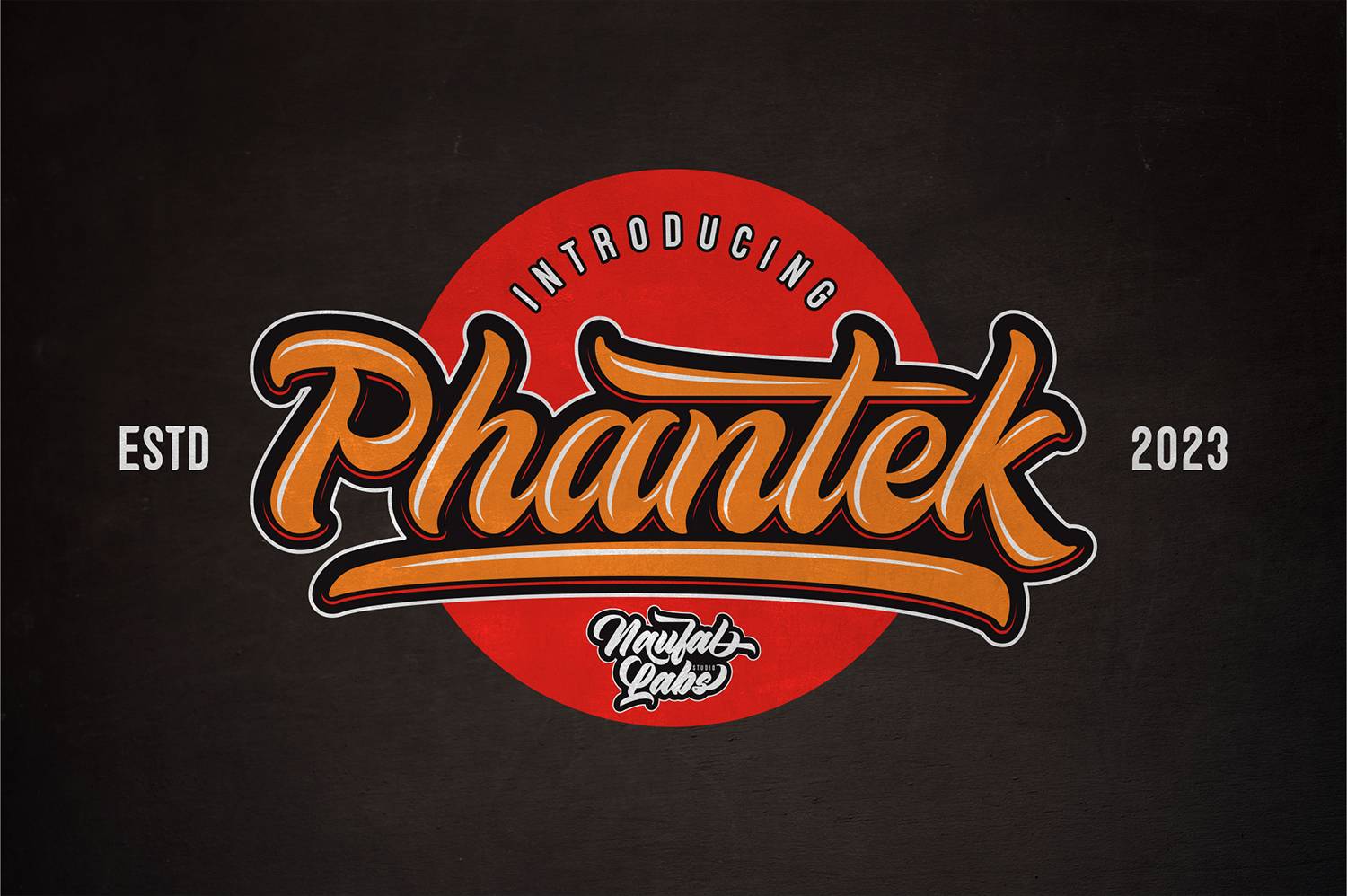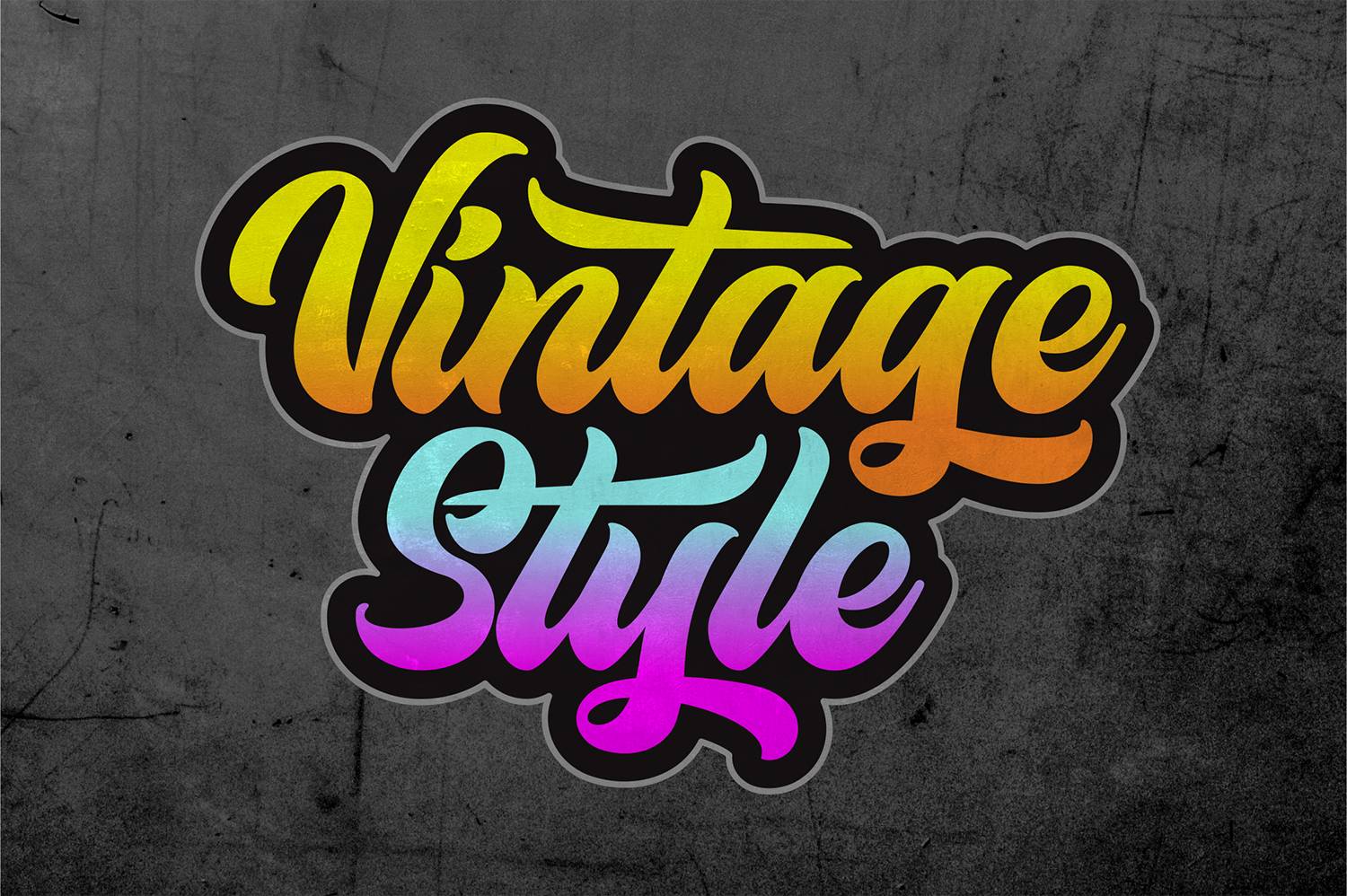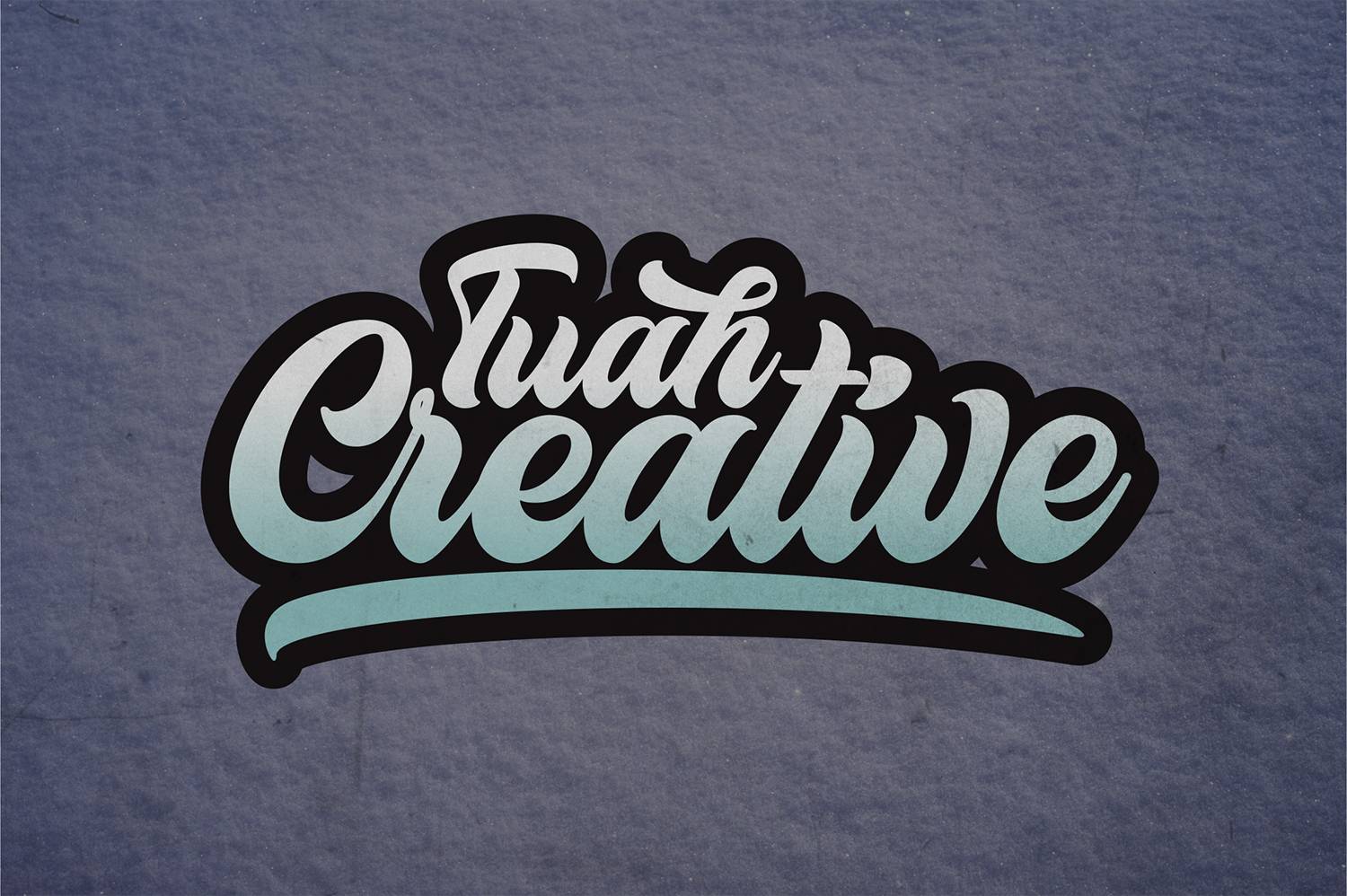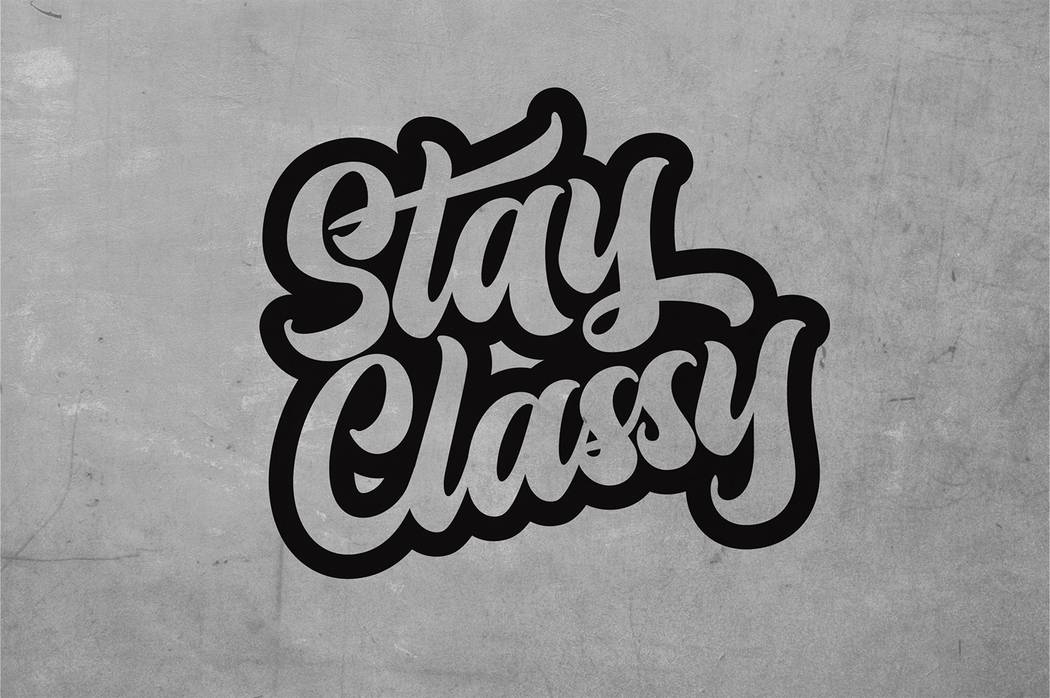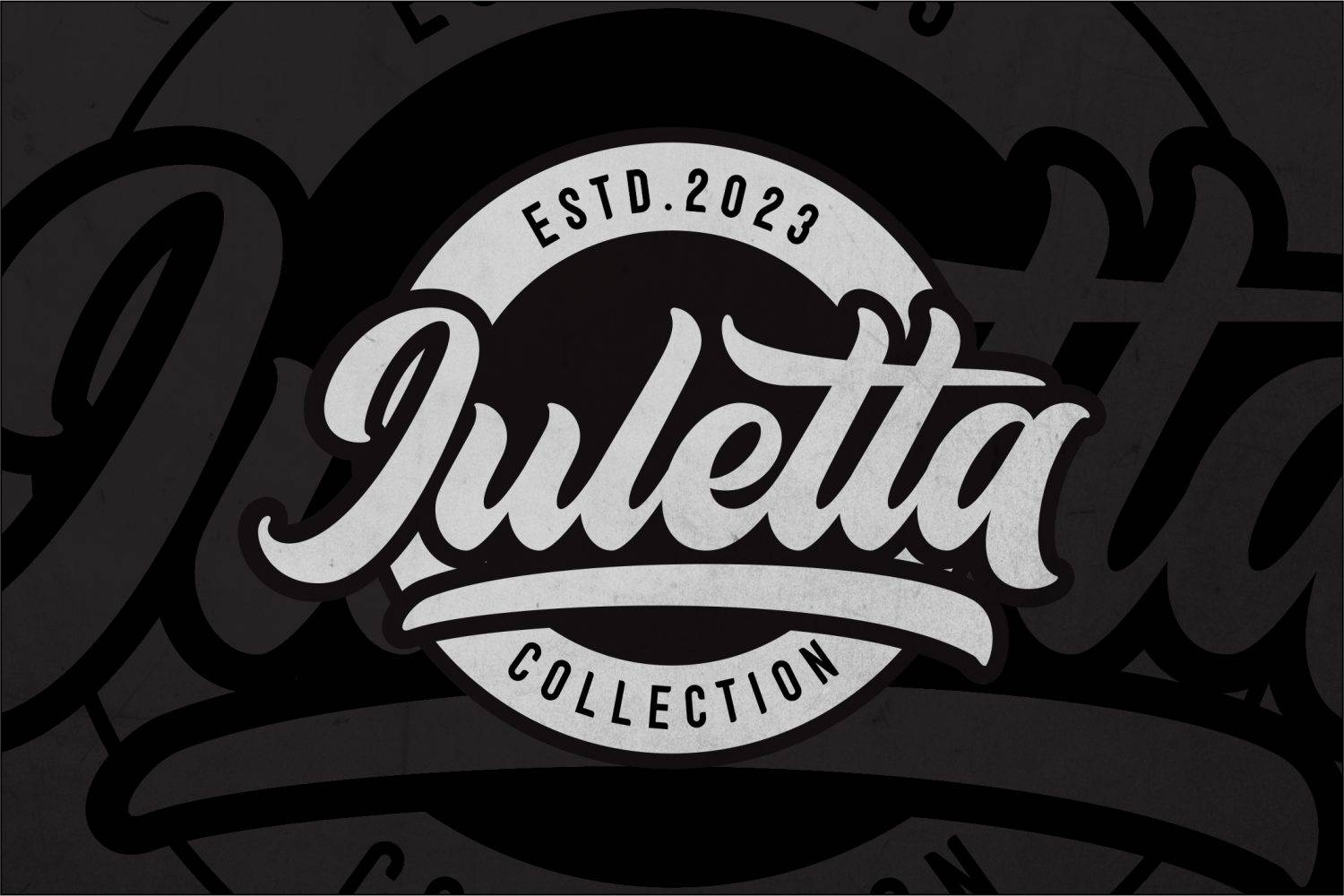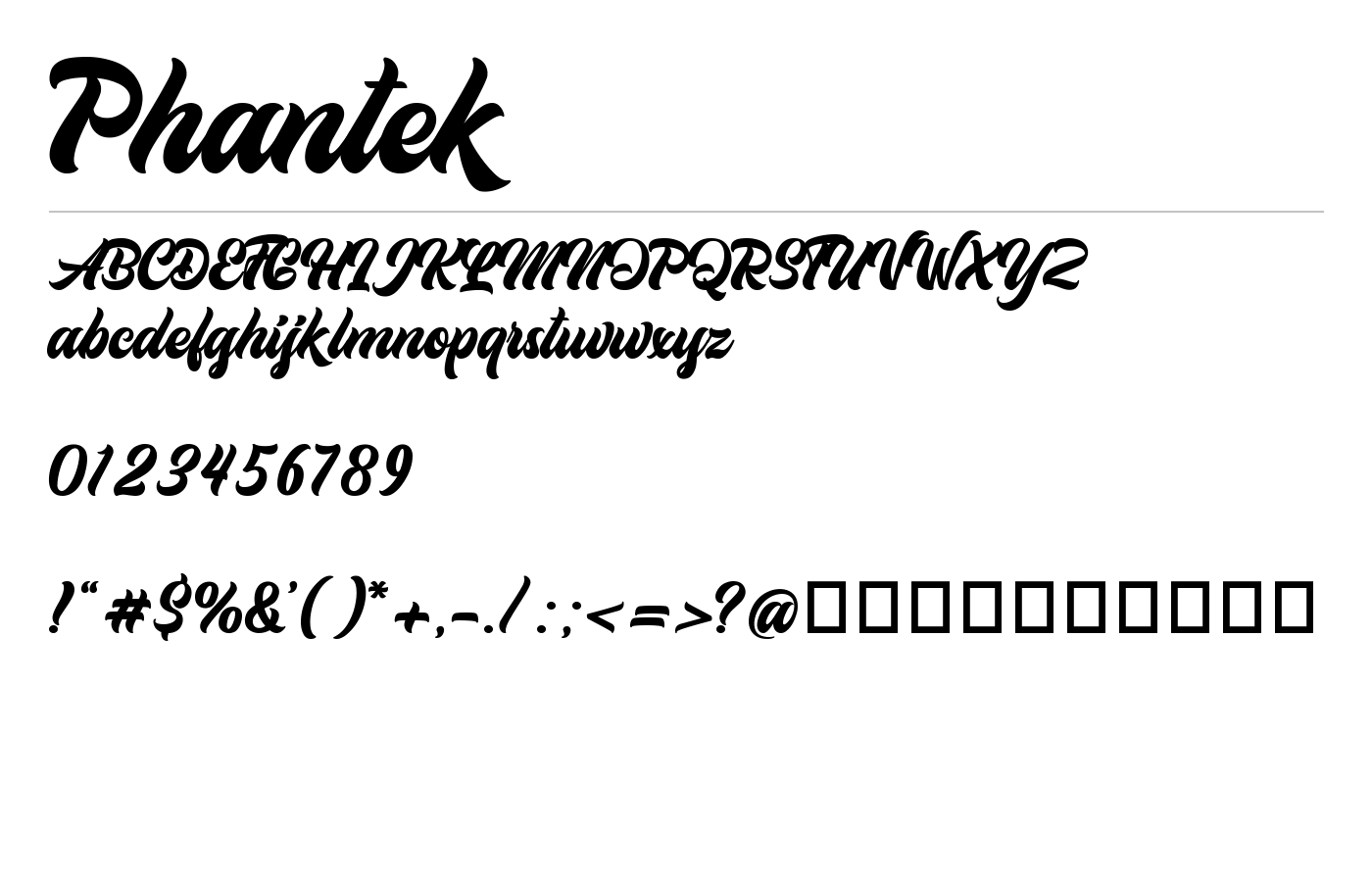
Phantek is a bold and dynamic script font that combines a smooth, flowing style with strong, rounded strokes. Its high contrast and connected letterforms give it an energetic and playful yet elegant personality, making it a great choice for logos, headlines, and branding that seek a friendly and stylish look. This font works well in creative and informal settings where a touch of flair and readability are both important.
Phantek Font
About Phantek Font
| Font family | Phantek Font |
| Release date | 2023-03-04 |
| Designer | MOH. MA'IN |